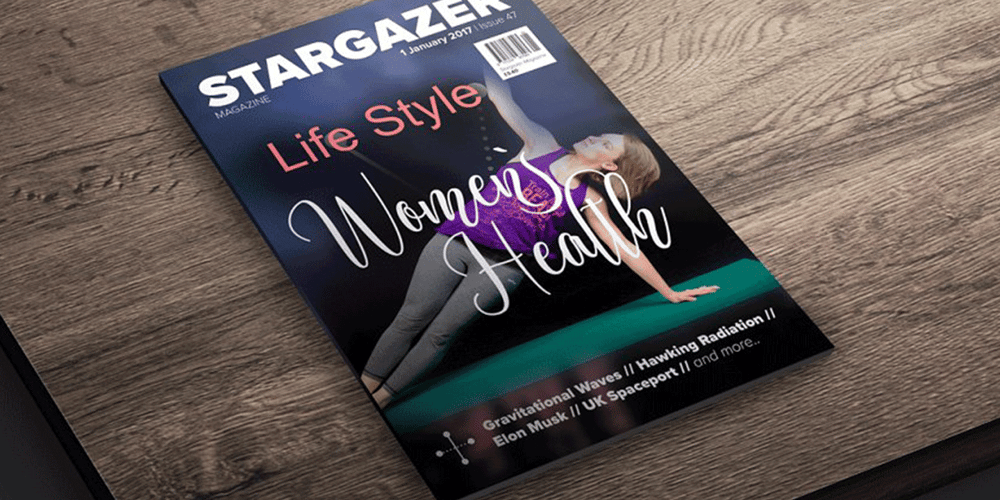
Vortices
Vortices font
Vortices Font Family was designed by Ront Jorse and published by Jorsetype. Vortices contains 1 styles and family package options. Vortices is a font that made the hand by having the character up and down like a dancer. Vortices has a very unique style of calligraphy, it is very suitable for use in the work of modern design. combines from copperplate to contemporary typeface with a dancing baseline, modern and elegant touch. Vortices features 531 glyphs and alternate characters Include . including initial and terminal letters, alternates, ligatures and multiple language support. Programs that support in this font is a Adobe Photo Shop, Adobe Illustrator, Adobe Indesign, Corel Draw and Microsoft Office. Languages supported: Breton, Catalan, Czech, Danish, Estonian,French, German, Hungarian, Icelandic, Italian, Romanian, Scottish Gaelic, Slovak, Latvian, Lithuanian, Norwegian, English, Finnish, Polish, Portuguese, Slovenian, Spanish, Swedish, Turkish, Welsh. Basically, all european languages that are based on latin alphabet Can be used for various purposes.such as headings, logos, wedding invitation, t-shirt, letterhead, signage, lable, news, posters, badges etc. To enable the OpenType Stylistic alternates, you need a program that supports OpenType features such as Adobe Illustrator CS, Adobe Indesign & CorelDraw X6-X7